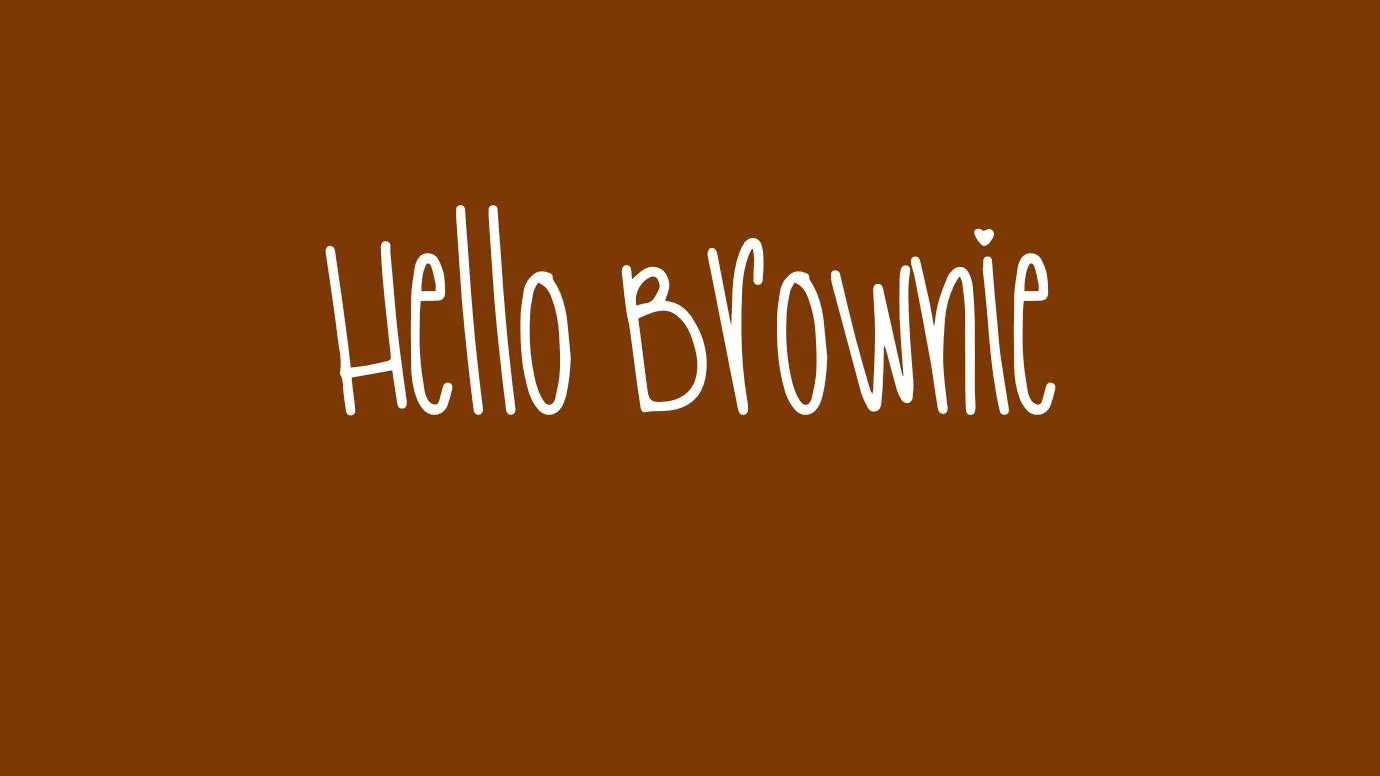
Hello Brownie Font Family is a very beautiful and joyful handwritten font. This amazing font was designed by Revitasari. You can use it for all types of personal and commercial projects by using this font.
This font is also good for pairing with other fonts such as Indonesia font to give a more elegant look to your projects.
Hello Brownie Font